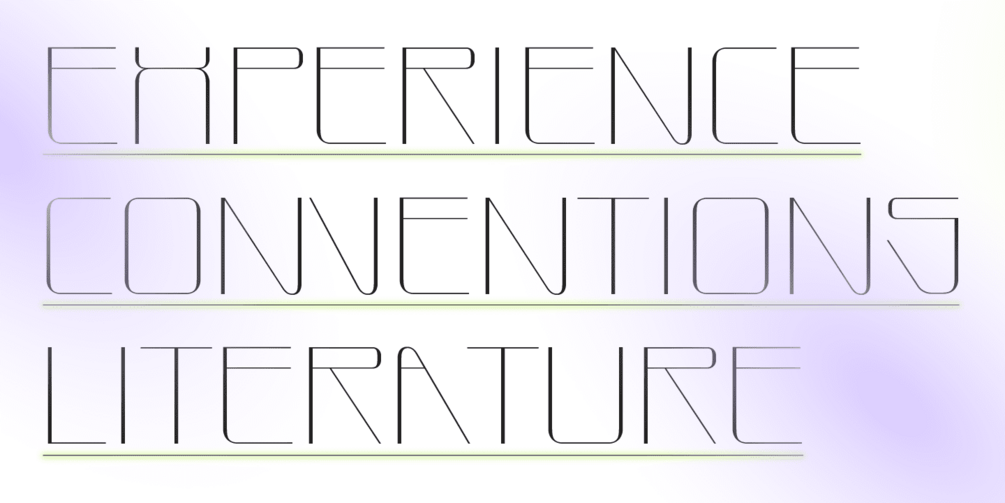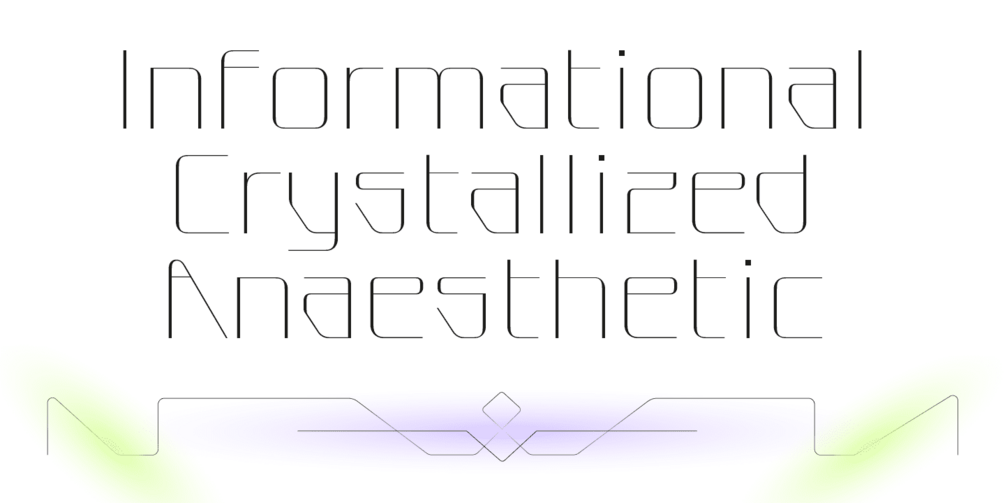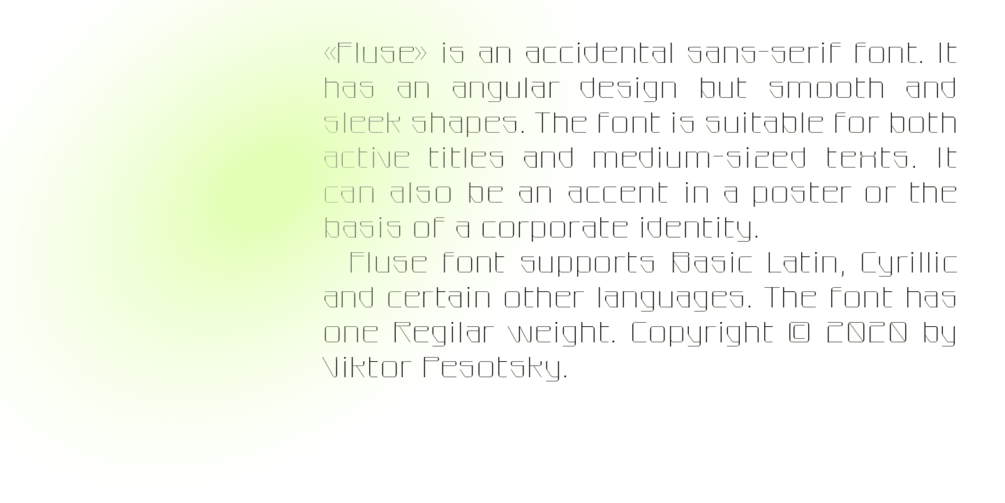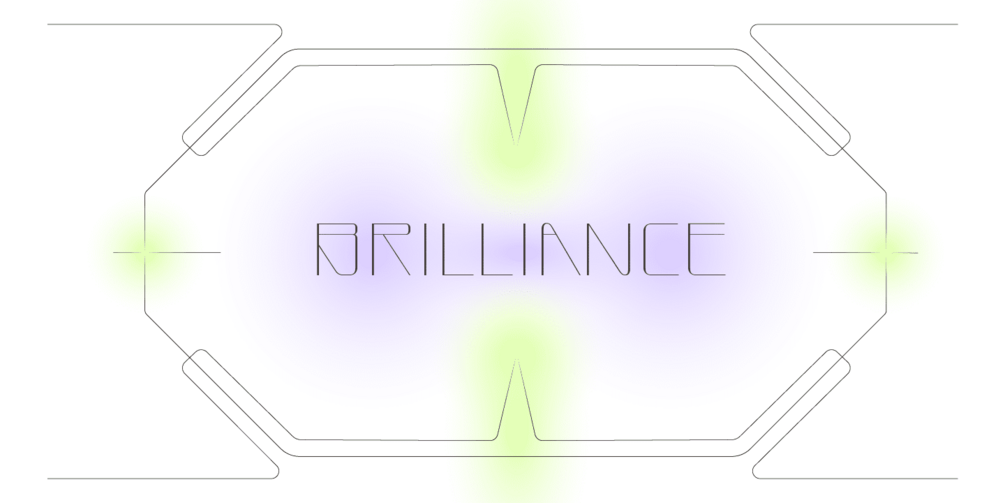
"Fluse" font
Fluse — it has a grotesque design, but with a contrast of strokes. The font is asymmetric vertically, and stretched up, and all the corners are rounded. There is also a limited set of graphic techniques, so it is very smooth in typing, and looks technological, thanks to rectangular shapes and diagonals. In the mood, this is naive futurism, like from the films of the 80s about the future.